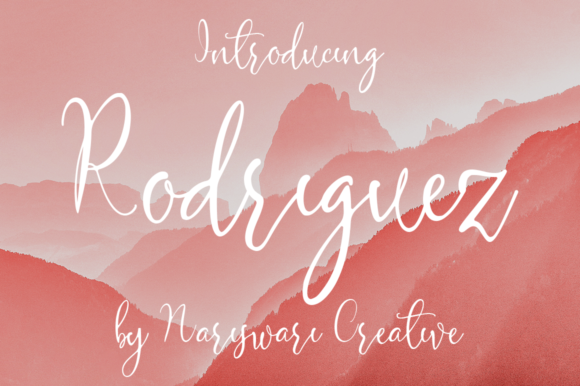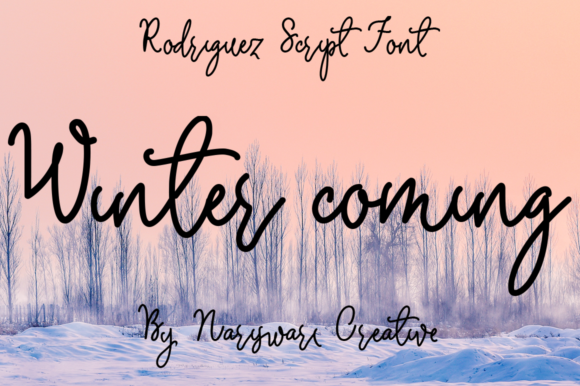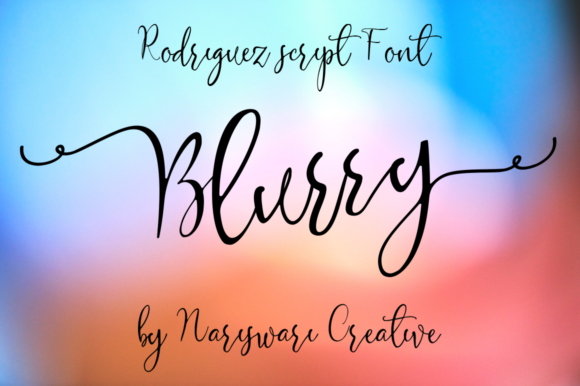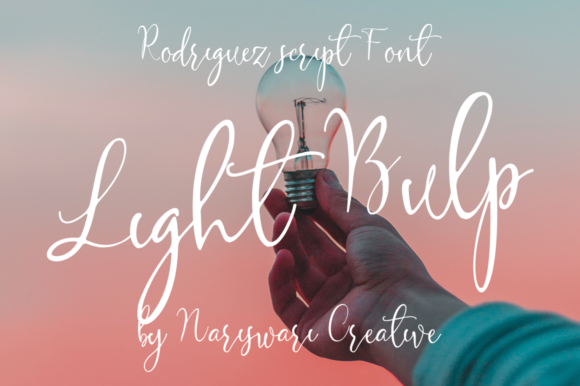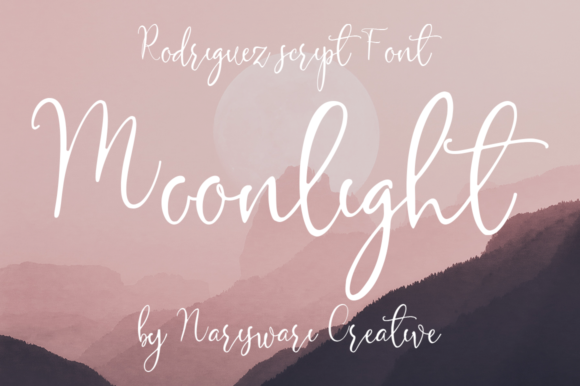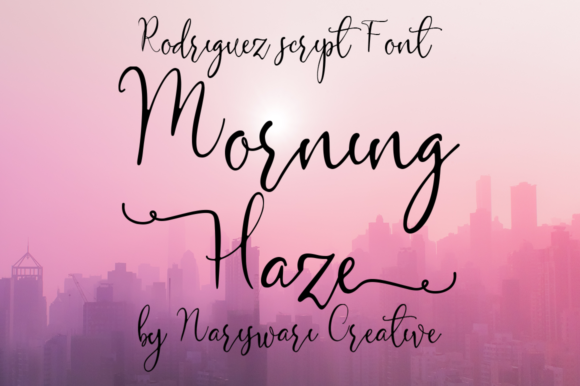
Introduction to Rodriguez Font
Rodriguez is an elegant and flowing handwritten font.
It is PUA encoded which means you can access all of the glyphs and swashes with ease It features a varying baseline, smooth lines, gorgeous glyphs and stunning alternates.
Key Features of Rodriguez Font
Why Choose Rodriguez Font?
Rodriguez Font offers exceptional quality and versatility, making it a valuable addition to your design toolkit. Whether you’re creating for personal projects or commercial use, Rodriguez Font delivers professional results.